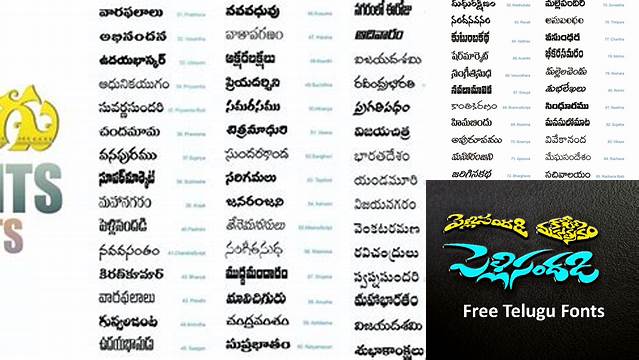
Introduction: Unleash Your Creativity with Anu Telugu Fonts
In the realm of digital design, typography stands as a cornerstone of visual communication. Fonts, my creative companions, breathe life into words, transforming them from mere text into captivating works of art. For designers and creatives working with the Telugu language, the Anu Telugu fonts hold a special significance. These fonts, celebrated for their elegant curves, clear readability, and cultural resonance, have become indispensable tools for crafting visually stunning designs. Guys, if you're looking to enhance your Telugu typography in Photoshop, you've come to the right place!
Anu Telugu fonts are more than just typefaces; they are gateways to a rich linguistic heritage. Each character, meticulously crafted, carries the essence of the Telugu script, making it an ideal choice for projects that demand authenticity and cultural sensitivity. Whether you're designing wedding invitations, crafting marketing materials, or creating captivating social media content, Anu Telugu fonts can elevate your designs to new heights. In this comprehensive guide, we'll delve into the world of Anu Telugu fonts, exploring their versatility, aesthetics, and how you can freely download them to supercharge your Photoshop projects. Let's embark on this typographic journey together!
When it comes to Telugu typography, Anu fonts often stand out due to their unique blend of tradition and modernity. The strokes, the curves, and the overall design language reflect the rich heritage of the Telugu script. However, these fonts are not just about preserving the past; they are also about adapting to the contemporary design landscape. This adaptability makes Anu Telugu fonts incredibly versatile, suitable for a wide range of projects, from formal documents to creative artwork. Think about the impact a beautifully rendered Telugu invitation card can have, or the visual appeal of a Telugu quote overlaid on a striking image – the possibilities are truly endless with the right font in hand.
Furthermore, the readability of Anu Telugu fonts is a key factor in their popularity. While some decorative fonts may prioritize aesthetics over clarity, Anu fonts strike a harmonious balance. They are designed to be easily legible, even at smaller sizes, ensuring that your message is conveyed effectively. This is particularly crucial in digital design, where content is often consumed on various screen sizes and resolutions. So, whether you're working on a website, a mobile app, or a print layout, you can trust Anu Telugu fonts to deliver your message with clarity and style. And the best part? You can download these incredible fonts for free, making them accessible to everyone who wants to add a touch of Telugu elegance to their designs.
Why Choose Anu Telugu Fonts for Your Projects?
When you are working on a design project that requires Telugu script, the font you choose plays a crucial role in conveying the right message and aesthetic. Anu Telugu fonts have emerged as a popular choice among designers for several compelling reasons. Let's explore the key advantages of using these fonts in your projects, guys. First and foremost, Anu Telugu fonts are renowned for their exceptional readability. This is paramount in any design, as the primary goal is to communicate effectively. The clear and well-defined letterforms of Anu fonts ensure that your text is easily legible, whether it's displayed on a screen or printed on paper. This readability makes them suitable for a wide range of applications, from body text in documents to headlines in posters.
Beyond readability, Anu Telugu fonts boast an inherent elegance that sets them apart. The graceful curves and balanced proportions of the characters lend a sophisticated touch to any design. This elegance is not just about aesthetics; it also reflects the cultural richness of the Telugu language. By using Anu fonts, you're not just choosing a typeface; you're embracing a heritage. This is particularly important for projects that aim to evoke a sense of tradition, authenticity, or cultural pride. Imagine using an Anu font for a wedding invitation, a festive greeting card, or a cultural event poster – the impact can be truly profound.
Another significant advantage of Anu Telugu fonts is their versatility. These fonts are not limited to a specific design style or application. They can seamlessly adapt to various contexts, from formal to informal, from traditional to modern. This versatility makes them a valuable asset in any designer's toolkit. You can use them for everything from corporate brochures to social media graphics, from website headers to book covers. The ability to use a single font family across multiple projects ensures consistency and strengthens your brand identity. Moreover, the fact that you can download Anu Telugu fonts for free makes them an incredibly accessible option for designers of all levels.
Furthermore, Anu Telugu fonts often come in a variety of weights and styles, giving you even more flexibility in your designs. You might find options like regular, bold, italic, and condensed, each serving a distinct purpose. Using different weights can help you create visual hierarchy, emphasize key information, and add depth to your typography. The availability of italic styles allows you to add a touch of elegance or create contrast within your text. And condensed styles can be useful when you need to fit more text into a limited space. This comprehensive range of options ensures that you can find the perfect Anu font for any design challenge.